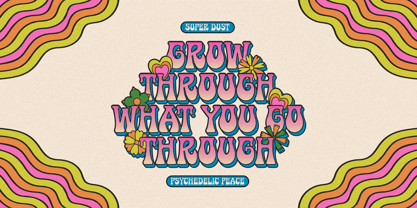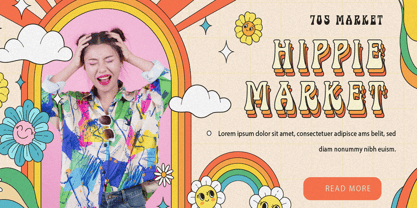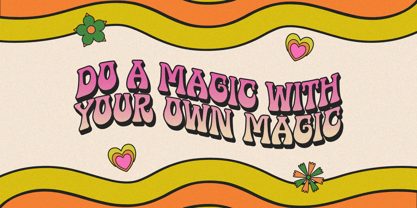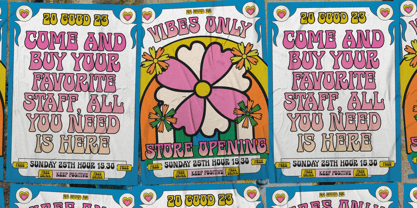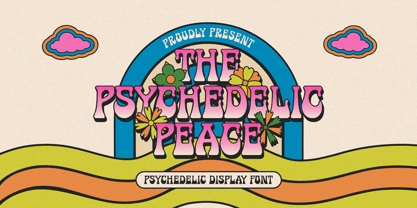
Psychedelic Peace
by Heinzel Std
The Psychedelic Peace Font Family was designed by Nofi Sofyan Hadi and published by Heinzel Std. Psychedelic Peace contains 1 styles. More about this family
Step back into the vibrant vibes of the 60s and 70s with The Psychedelic Peace – a bold, retro-inspired display font that radiates love, peace, and good vibes! This eye-catching font is perfect for designers and creators who want to channel the groovy spirit of the psychedelic era.
With its bold curves, bubbly letterforms, and playful shadows, The Psychedelic Peace is ideal for:
• Retro posters and album covers
• Vintage-themed branding
• Festival flyers and merchandise
• T-shirt designs, stickers, and more!
• Perfect for headlines, logos, and decorative text
Designers: Nofi Sofyan Hadi
Foundry: Heinzel Std